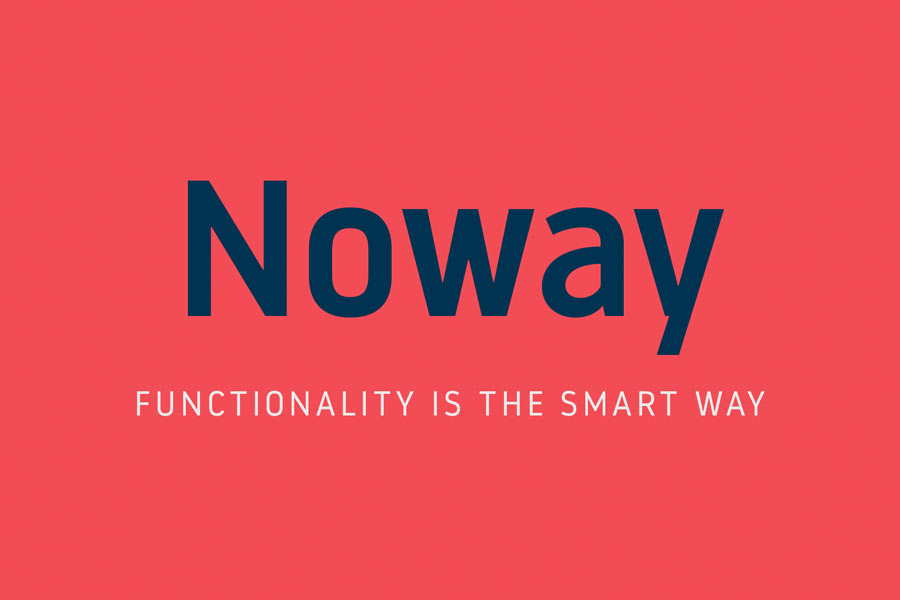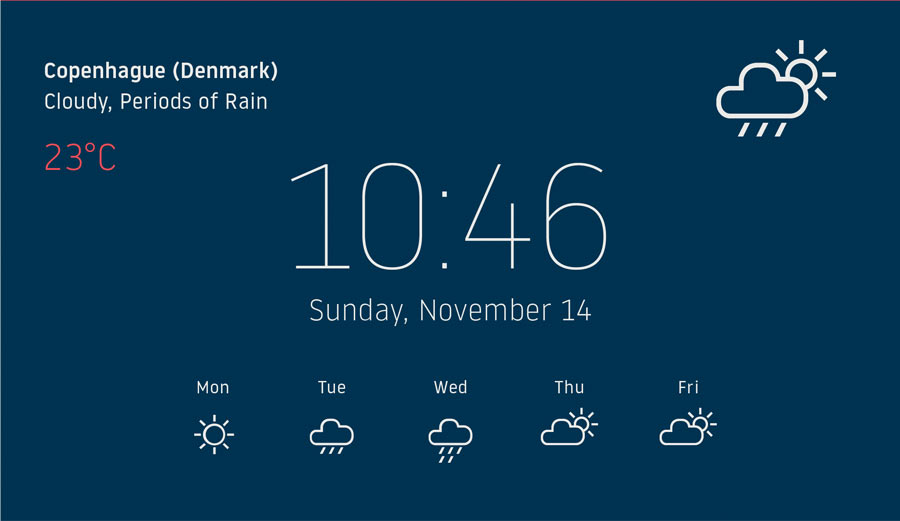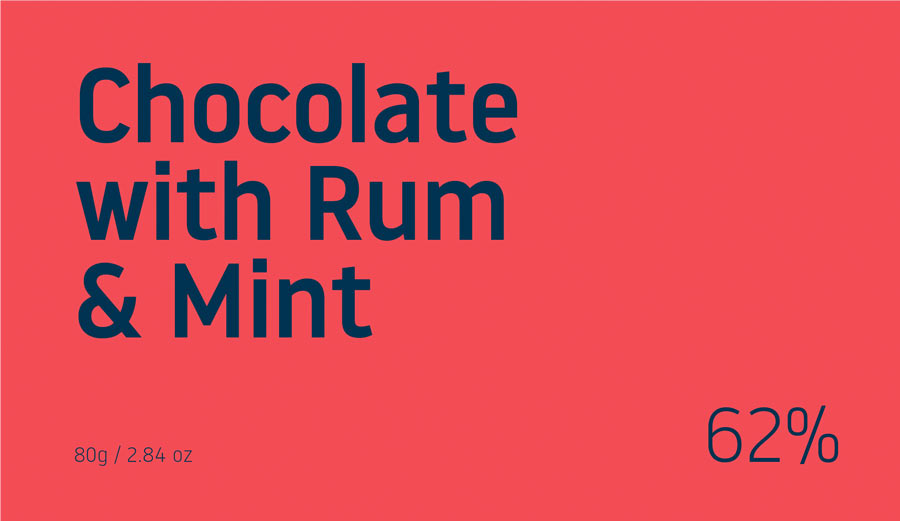
Noway is the latest font family designed by my favourite Atipo foundry. This font was designed with technology and legibility in mind. Noway reminds me of Roboto and Din Pro, the slight condensed feature makes this font perfect for designing for smaller screens, for example UI design for mobile apps and wearables.
- Designer: Atipo Foundry
- Category: Sans Serif